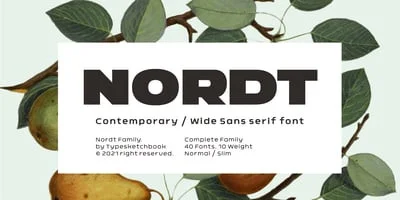
Nordt Font
Nordt Font is ideal for Scandinavian brands, minimalist design, Nordic companies, winter sports brands, outdoor equipment, clean lifestyle products, and contemporary Nordic communications. This distinctive typeface brings Nordic simplicity and modern elegance to clean design projects.
Nordt Font is exciting because it embodies the essence of Nordic design philosophy with its clean, minimalist letterforms that convey clarity and understated sophistication while maintaining exceptional functionality and timeless appeal across modern applications.
The Nordt Font family includes multiple weights from Light to Bold, each featuring clean geometric construction and Nordic design principles. This minimalist collection provides designers with pure options for creating memorable and authentically Nordic brand experiences.
Nordt Font provides access to a thoughtfully crafted typeface that captures the essence of Nordic design philosophy and Scandinavian aesthetic excellence. This clean font features precisely designed letterforms with minimalist details that create immediate associations with Nordic simplicity, functional beauty, and modern sophistication. The typeface showcases balanced proportions and understated elegance that enhance clean communications while maintaining professional functionality and broad accessibility. Its Nordic character makes it particularly suitable for contemporary brands and minimalist projects that require typography capable of conveying simplicity, clarity, and Scandinavian design values. Nordt Font delivers exceptional Nordic impact for applications where complex fonts feel excessive and interfere with clean communication principles. The font's minimalist appeal and Nordic aesthetic make it an essential tool for designers working on projects that require typographic expression of simplicity, functional elegance, and Nordic design philosophy that resonates with audiences seeking authentic minimalist experiences and clean visual communication.